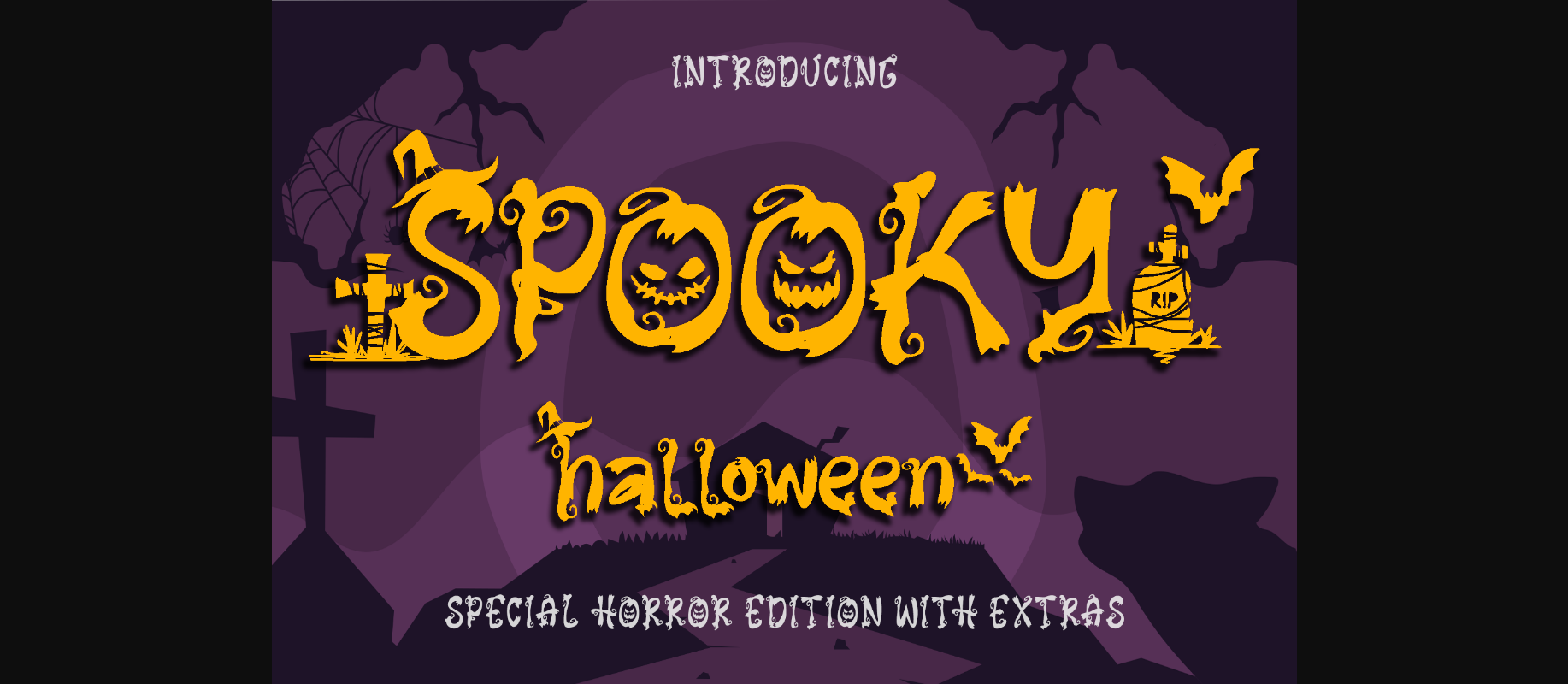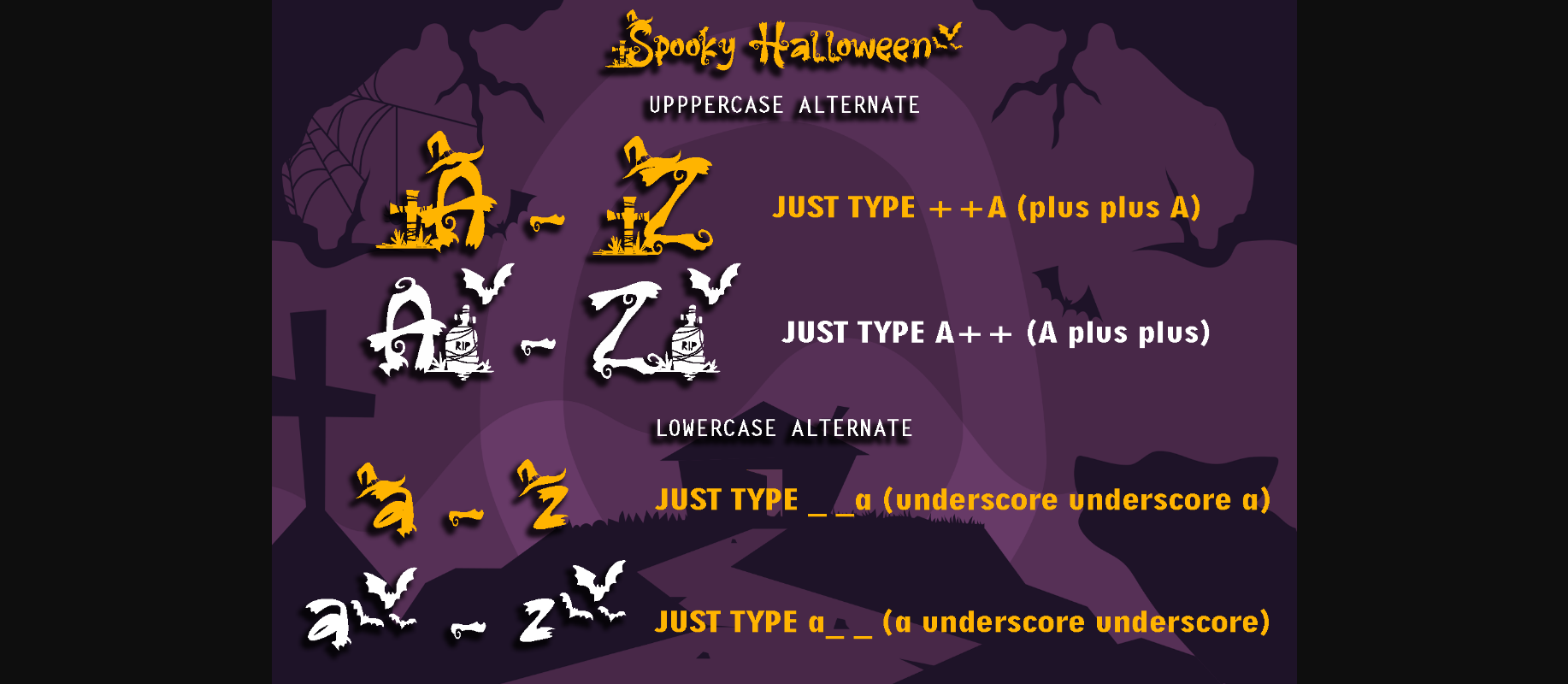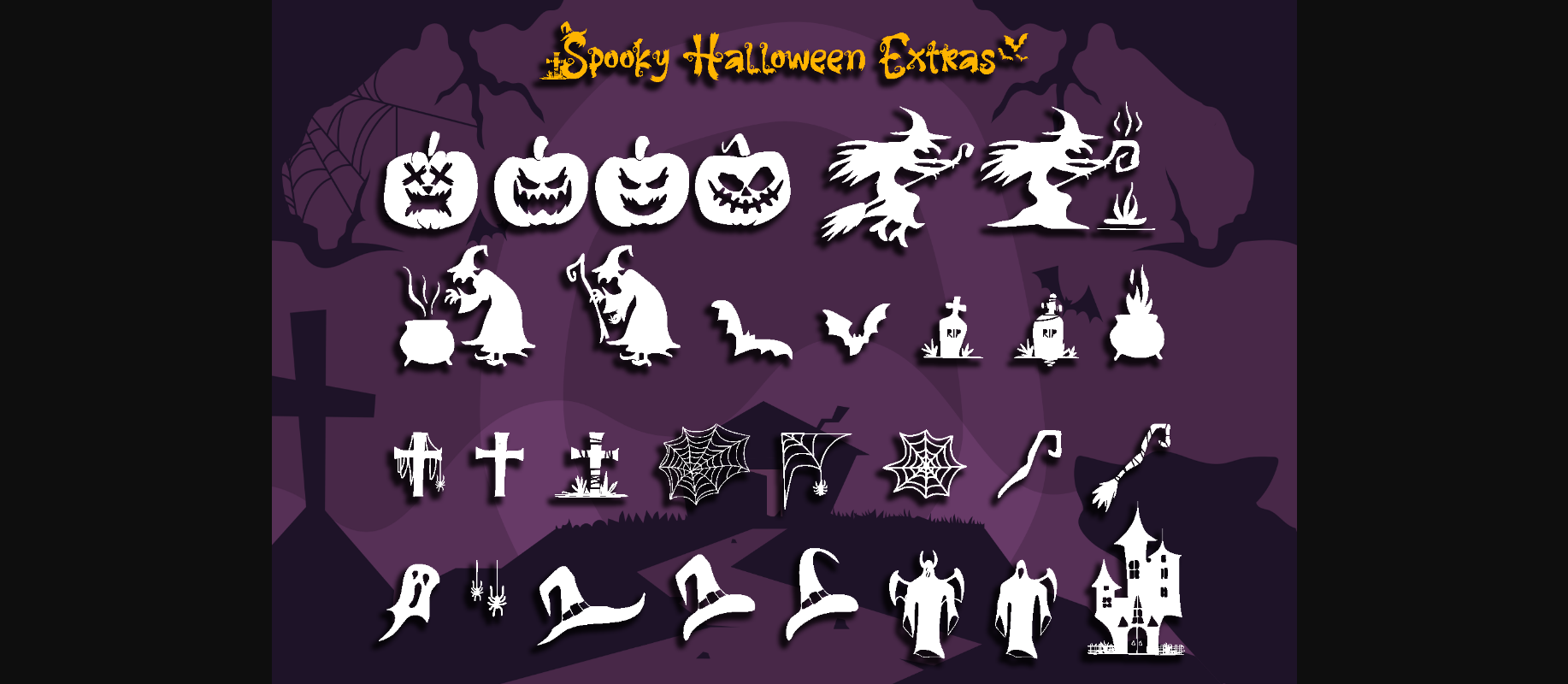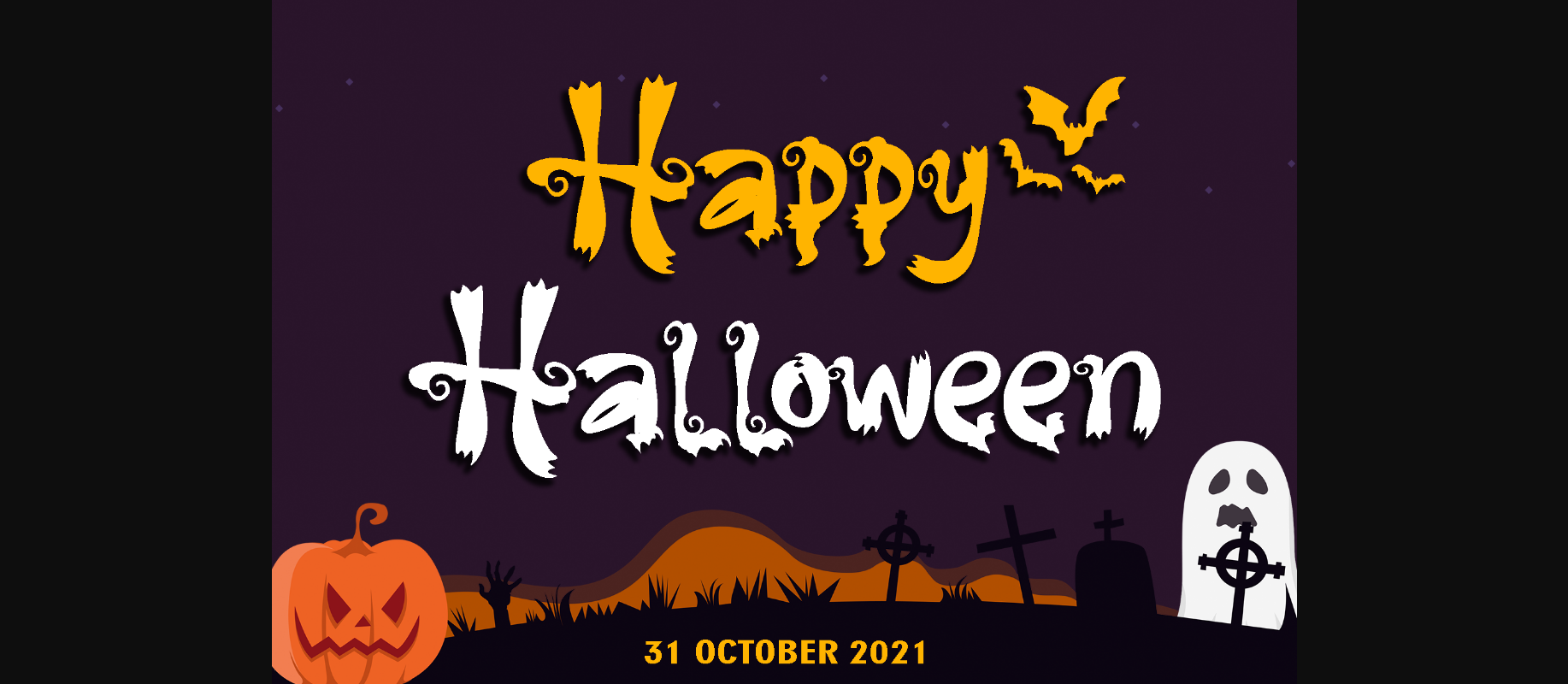
About Spooky Halloween Font
Spooky Halloween is a cool and scary decorative font. Use it for each of your October designs and notice how they instantly come to life. Spooky Halloween is PUA encoded which means you can access all of the glyphs and swashes with ease!